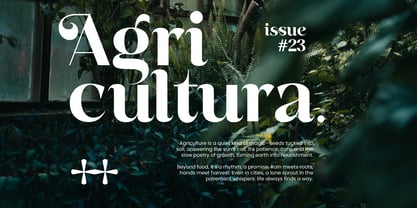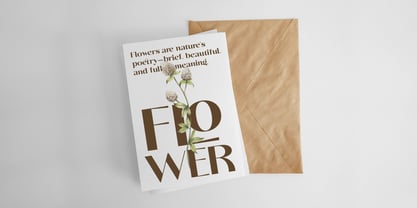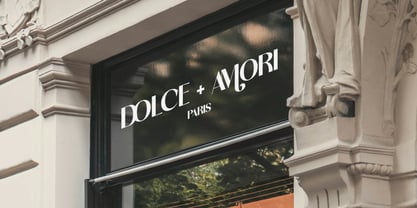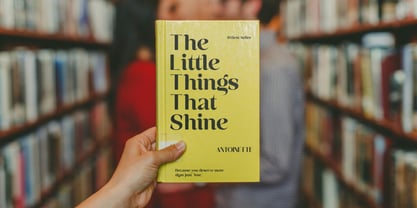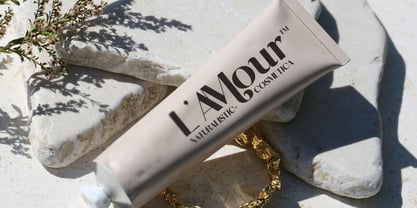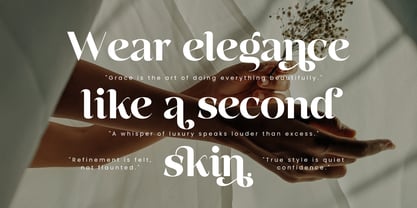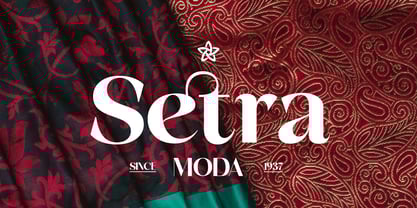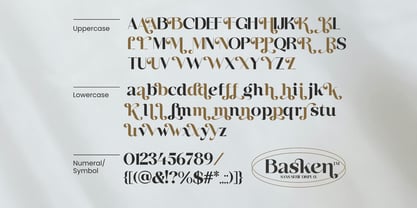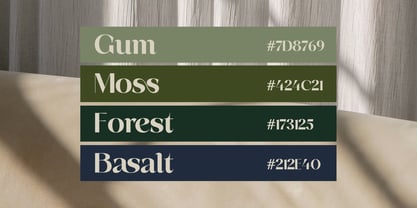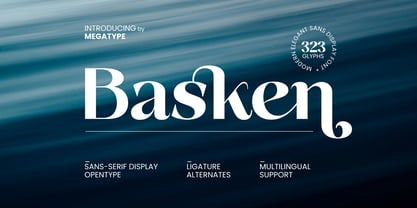
Basken
by Mega Type
The Basken Font Family was designed by M Akmal and published by Mega Type. Basken contains 1 styles.
Basken Sans Serif Display is a modern vintage Sans Serif font wrapped in a modern and classy style, complete with access to your OpenType features to access a wide selection of alternates and ligatures, choose your favorite letters from uppercase and lowercase variations to get a luxurious and elegant look.
This font is perfect for branding projects, logo design, clothing branding, packaging, magazine titles, book titles, advertising, t-shirts, postcards, and more.
Features
- All Uppercase and Lowercase
- Numbers & Symbols
- Supported Languages ​​
- Alternates and Ligatures